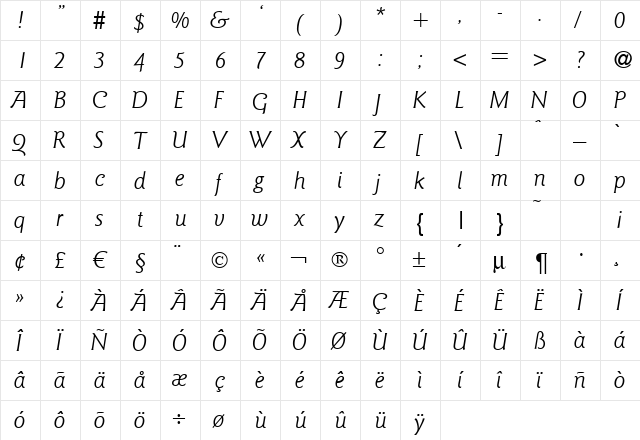
GoudyElegantTwo Italic
Design Context for GoudyElegantTwo Typeface
GoudyElegantTwo takes a measured approach to typography — its balanced proportions and neutral character make it a reliable workhorse for both digital and print work. Its italic angle brings a sense of urgency and motion to the letterforms.
Pro Tip: Try GoudyElegantTwo for annotation and caption copy alongside an upright companion — the contrast in angle creates a dynamic but ordered typographic system.